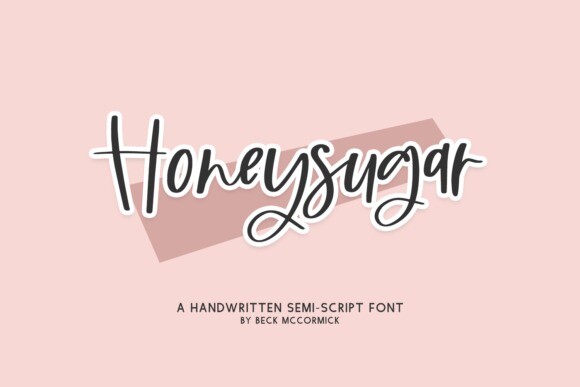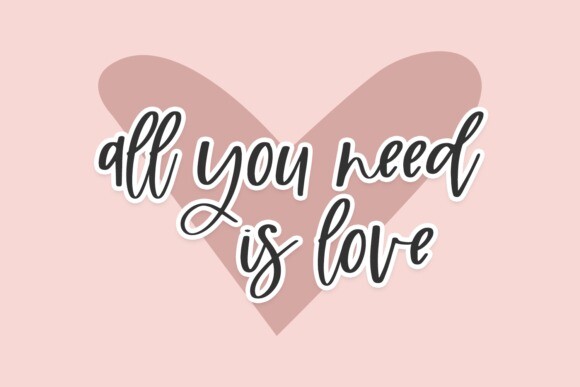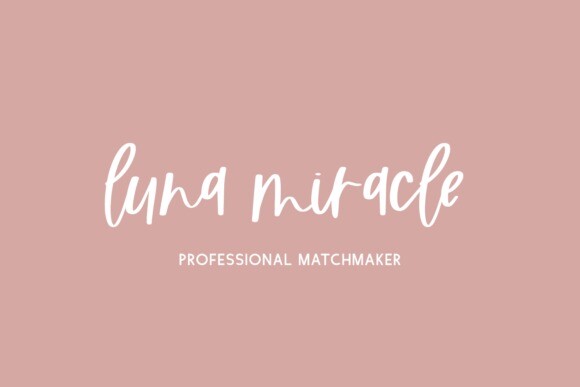
Honeysugar Font
Honeysugar Font, a cute modern calligraphy font.
Honeysugar is best for:
– feminine, crafty projects with your Cricut or Silhouette machine, or your SVG design business
– farmhouse decor and crafts
– logos + branding
– digital planners & apps like Goodnotes
– website design + website accents, blog design
– clean print design, like magazines + flyers
– header elements that need a handwritten touch
– quote graphics for social media
– feminine graphic tee shirt design & other apparel